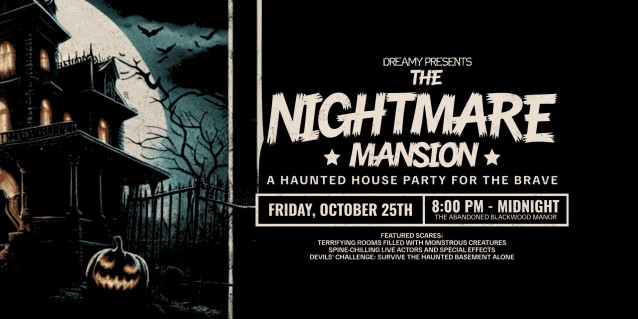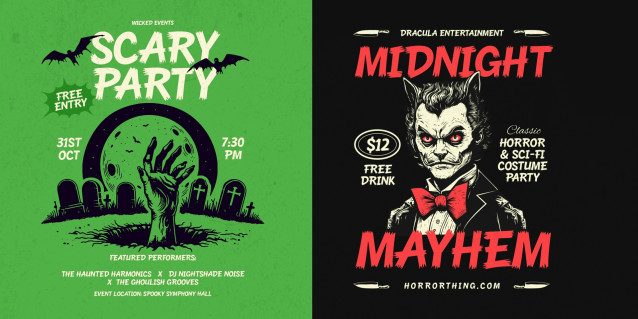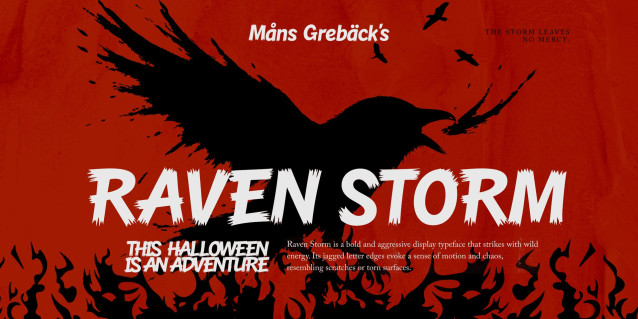
Raven Storm Font
Raven Storm Font is a bold and chaotic display typeface, slashed with wild streaks of motion and energy. It captures the untamed force of a tempest, like letters torn through a windstorm, each form pushing forward with fearless velocity.
The style combines sharp angles and brush-cut textures, giving it a raw and kinetic personality. It feels as if each letter was cut through paper by a jagged claw or painted in a rush of adrenaline. Perfect for themes of power, rebellion or high-speed action, this typeface doesn’t whisper—it roars.
The font is built with advanced OpenType functionality and guaranteed top-notch quality, containing stylistic and contextual alternates, ligatures and more automatic and manual features; all to give you full control and customizability.
It has extensive lingual support, covering all Latin-based languages, from North Europa to South Africa, from America to South-East Asia. It contains all characters and symbols you’ll ever need, including all punctuation and numbers.
Designed and created by Mans Greback, one of the leading type designers in high-quality expressive fonts, Raven Storm showcases his signature blend of energy and precision.